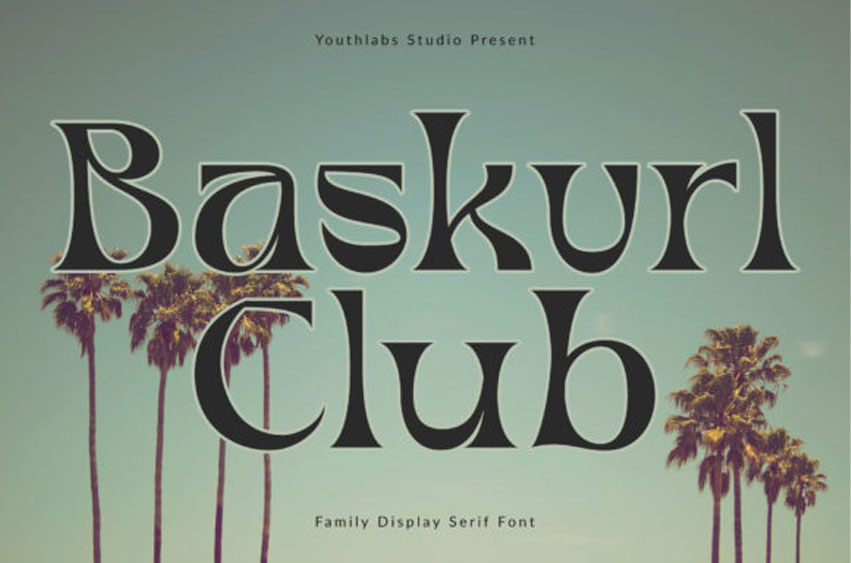
Baskvrl Club Font is a cursive and bold serif font family, perfect for adding a contrasting accent to your designs!
Unique and creative, this font can enhance the appearance of any crafty idea!